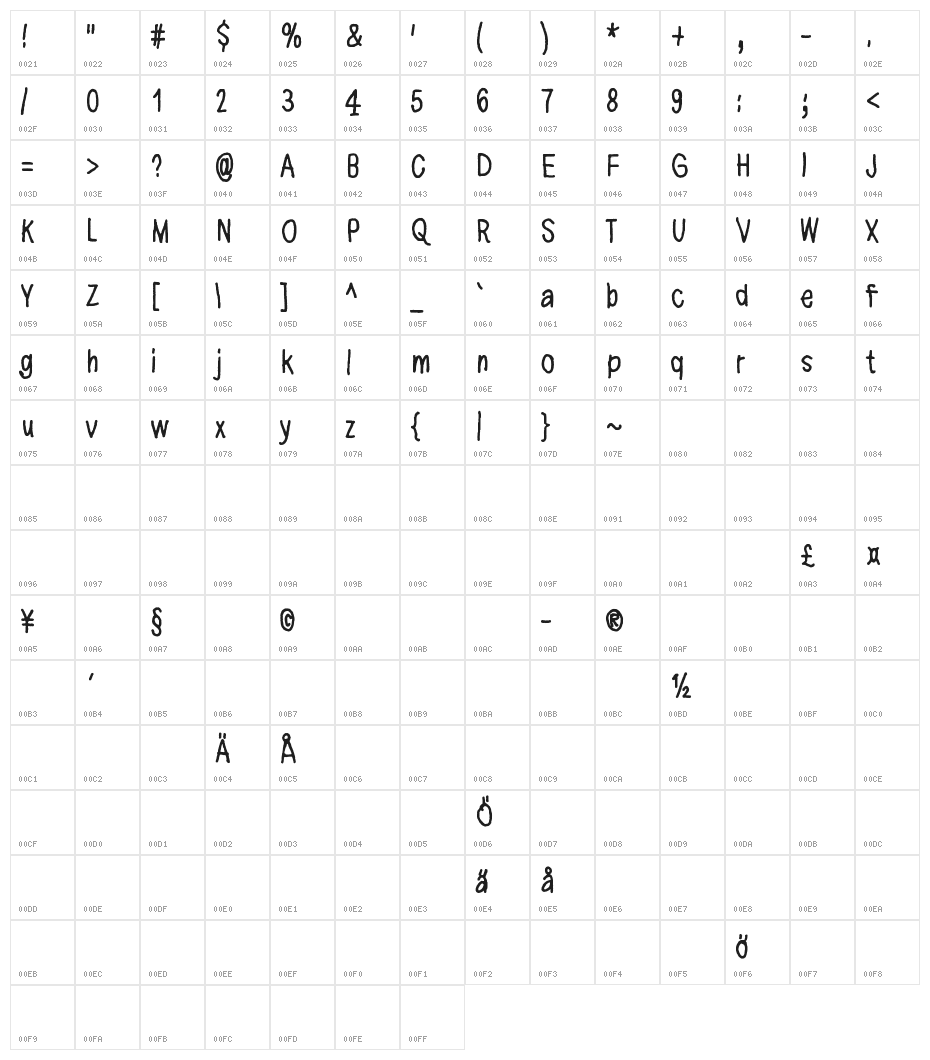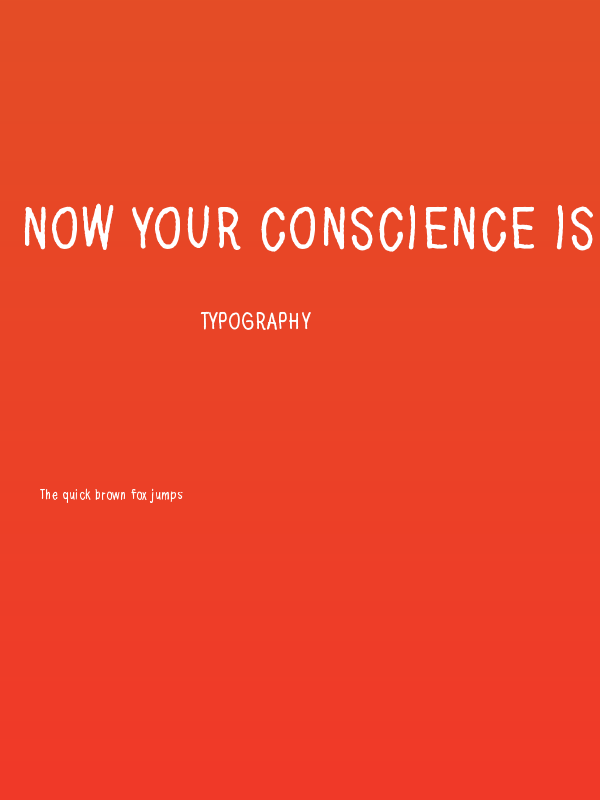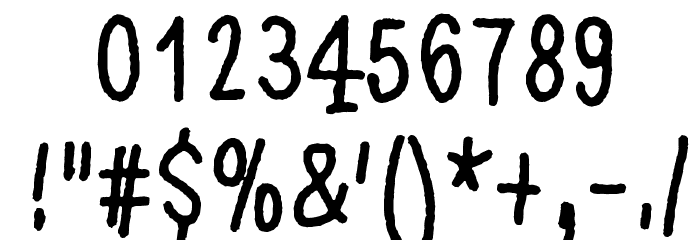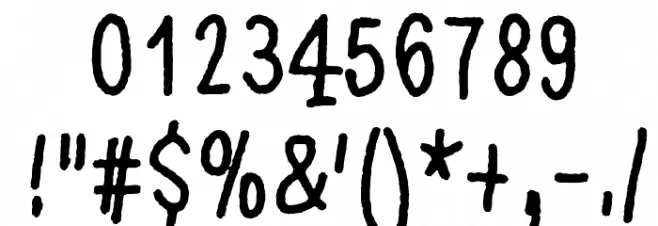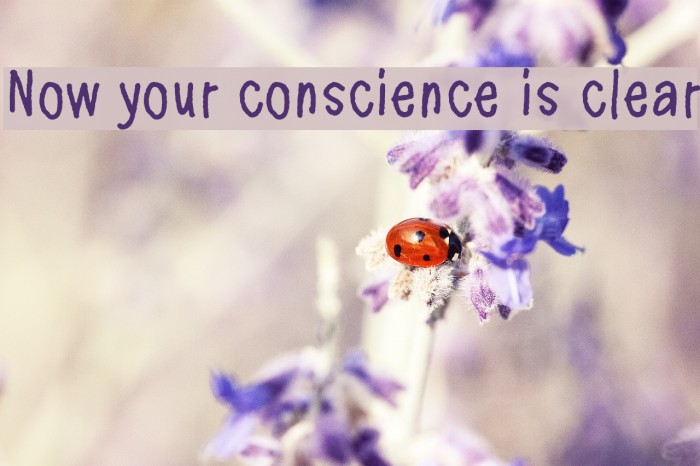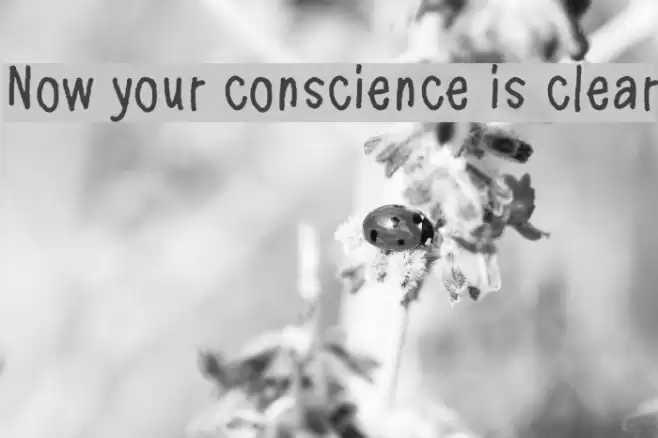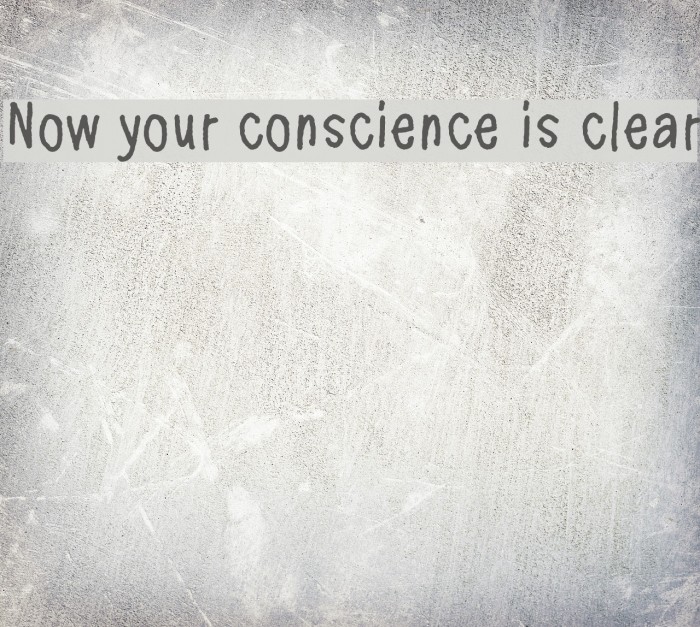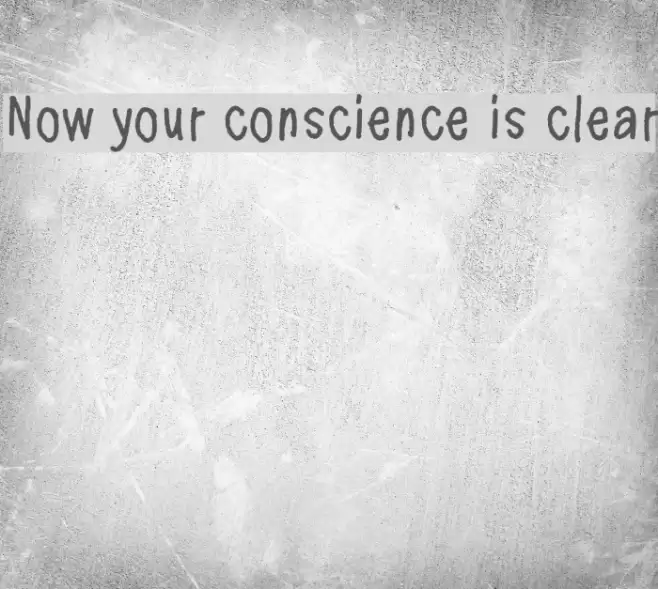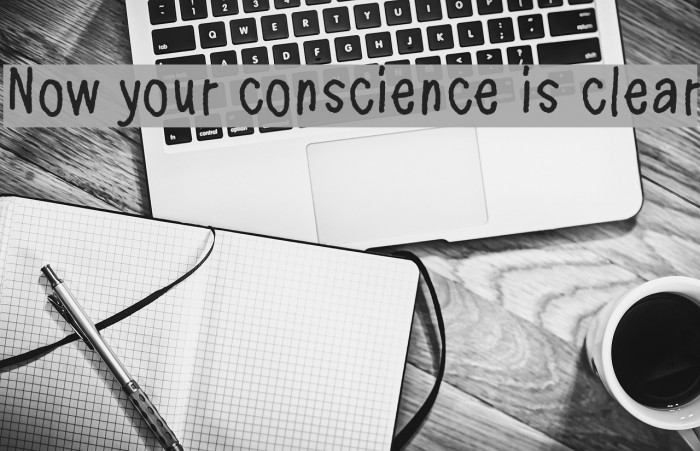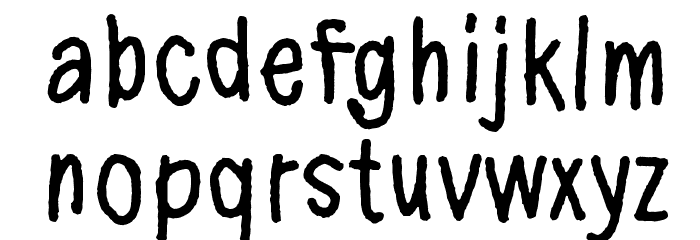
Now your conscience is clear Font
| Gesamtstil | Casual |
| Anwendungsfall | Headlines, Informal text, Personal projects |
| Vorgeschlagene Projekte | Ideal for greeting cards, personal invitations, children's books, and informal branding. |